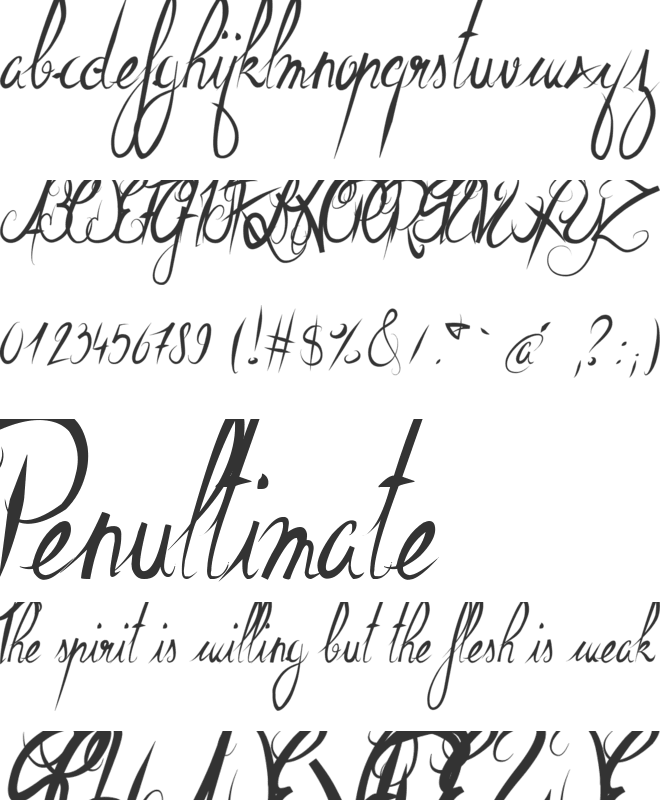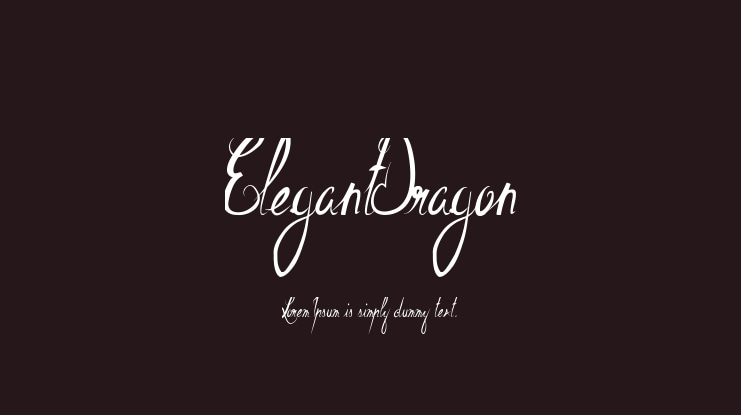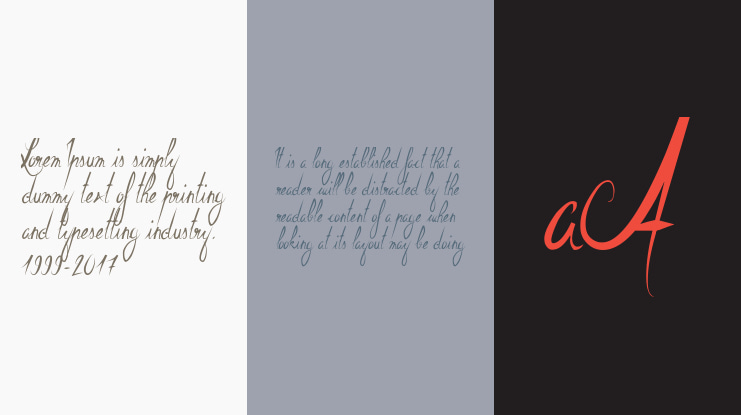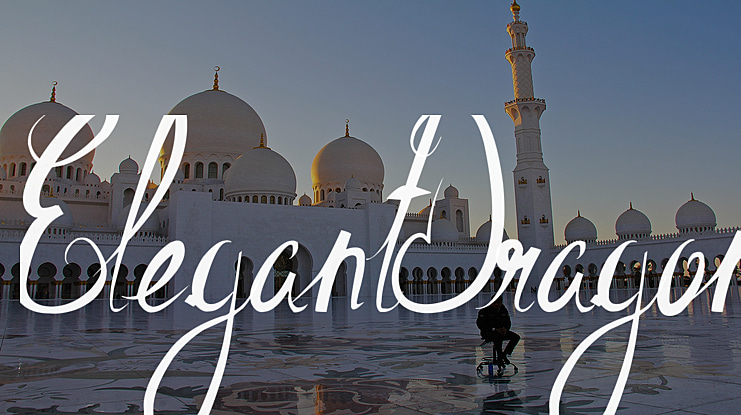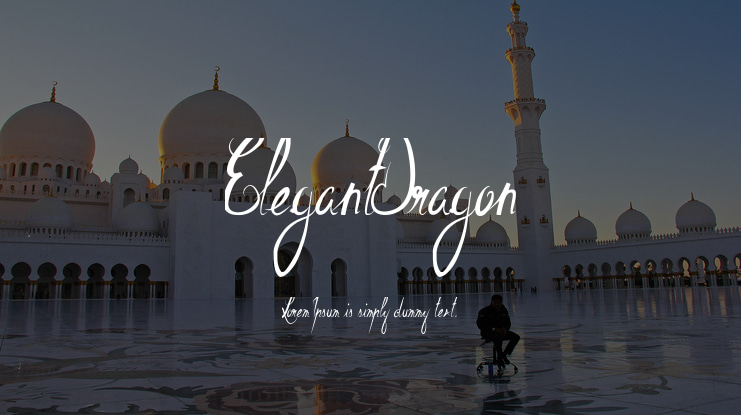
ElegantDragon Font Family
Version 1.0. Regular, bold & italic. Style : handwriting, normal, old fashion. Included A-Z, a-z, 0-9, "'()-_={}#%$*&,;:!?./\ ________________________________
My first typography !